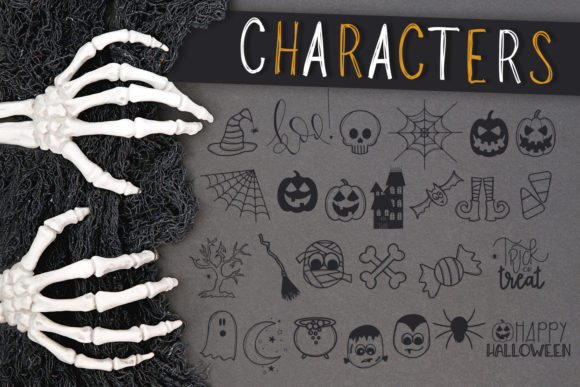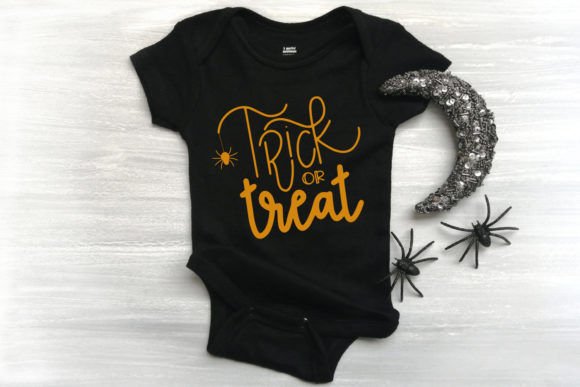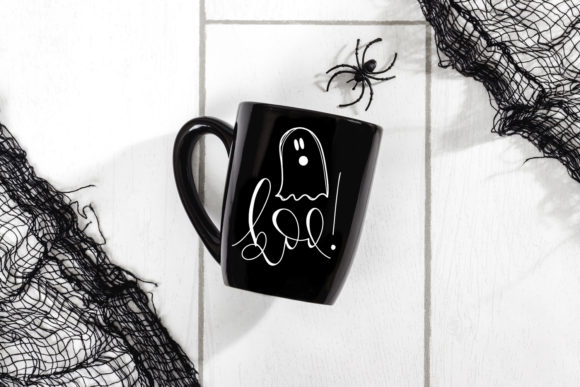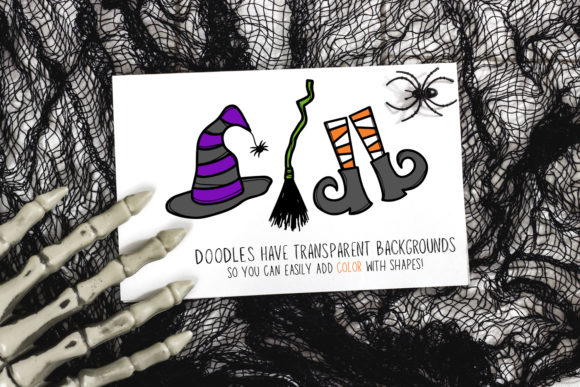
Introduction to OctobaDoodles Font
As a designer, have you ever stared at a blank canvas, struggling to bring your creative vision to life? It’s a moment we’ve all been there – the blank page staring back at us, begging for inspiration. But what if you had the perfect tool to unlock your creativity? For designers looking to add a touch of spooky whimsy to their projects, the OctobaDoodles Font is here to save the day.
This incredibly unique dingbats font is a game-changer for any design project, from Halloween-themed invitations to spooky social media graphics. With its quirky, hand-drawn style and transparent background, the OctobaDoodles Font is the perfect design resource for anyone looking to add a touch of high-quality, creative flair to their work.
Key Features of OctobaDoodles Font
- Unique, whimsical design style perfect for creative projects and design resources.
- High-resolution design with a minimum resolution of 300 DPI, ideal for printing and large-scale use.
- Transparent background option allows for seamless integration into various design elements.
- Includes a range of characters and glyphs, making it suitable for both personal and commercial use.
- Designed with a focus on creativity and self-expression, making it an excellent choice for artistic and design projects.
- Available in a range of sizes, from 12pt to 72pt, allowing for flexibility in design applications.
Honest Review: OctobaDoodles Font
As a designer, I’m always on the lookout for high-quality design resources that can elevate my creative projects. The OctobaDoodles Font is one such find, and I’m excited to share my honest review with you.
- ✨ High-quality illustrations: The OctobaDoodles Font features beautifully crafted illustrations that add a whimsical touch to any design project.
- ✨ Transparent background: This font offers a transparent background option, making it easy to incorporate into designs with complex backgrounds.
- ⚠️ Limited font styles: While the illustrations are top-notch, the font styles themselves are somewhat limited, which may not be ideal for designers seeking a wide range of options.
- ⚠️ Compatibility issues: Some designers may experience compatibility issues with certain software or operating systems, so be sure to test the font before using it in a project.
Overall, the OctobaDoodles Font is a great addition to any designer’s arsenal. Its high-quality illustrations and transparent background make it a versatile design resource, and the free download is a definite plus. While it may have some limitations, I highly recommend giving it a try for your next creative project.